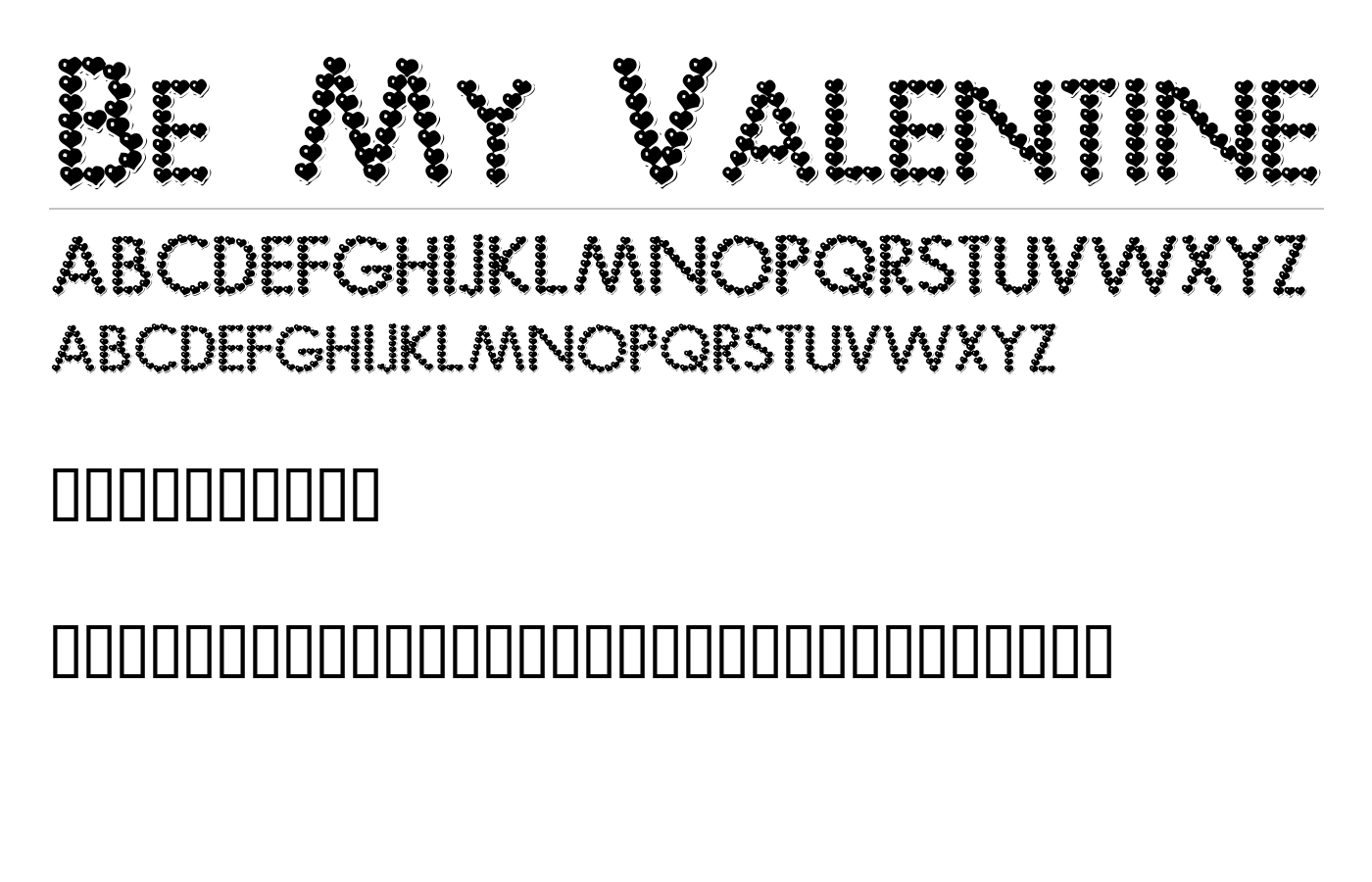
Be My Valentine Font is a playful and decorative display typeface composed entirely of small heart shapes forming clean, uppercase letters. Its bold weight and compact structure make it perfect for romantic, festive, or whimsical designs, ideal for party invitations, greeting cards, or eye-catching headlines that need a fun and affectionate touch. This font adds a charming and lighthearted vibe, capturing the spirit of love and celebration.
Be My Valentine Font
About Be My Valentine Font
| Font family | Be My Valentine Font |